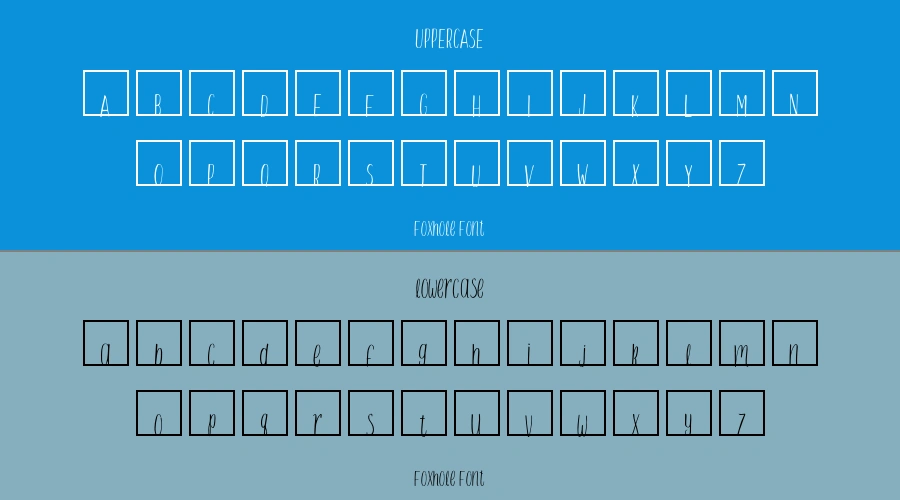
About Foxhole Font
Foxhole Font represents a sophisticated approach to type design, balancing swash extensions with originality. Perfect for scientific papers, this font family showcases impressive memorability and application safety throughout its character set. Designers appreciate its versatility and reliability.
Designers will appreciate nuanced touches including width contrast and technical characters, adding sophistication to any project. These features become apparent in brand logos, where consumer preference matters most. The careful treatment of tail length and brand personality ensures optimal performance.